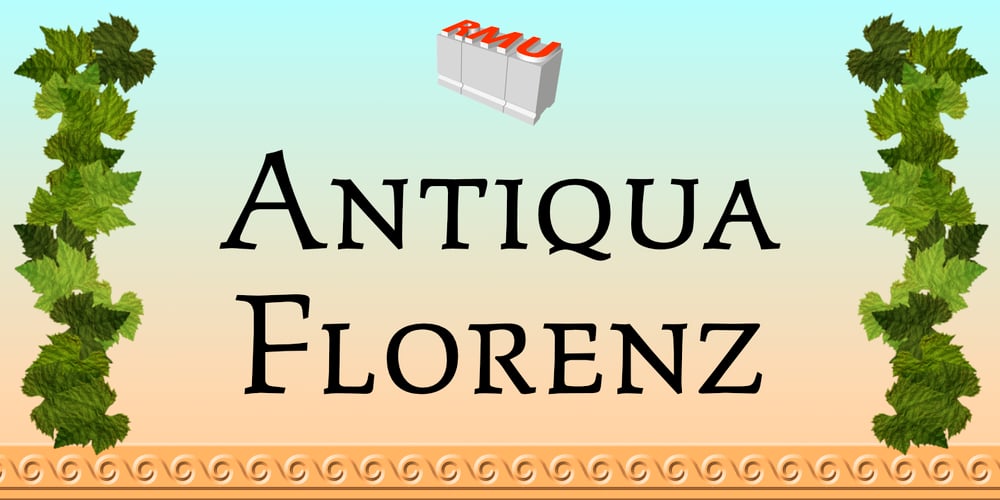
Antiqua Florenz Font Family was designed by Ralph M. Unger and published by RMU. Antiqua Florenz contains 1 styles and family package options. A font design of Paul Zimmermann, first released by Ludwig Wagner, Leipzig, in 1960, now revived and extended by Central European, Baltic, and Turkish character sets and their small caps. This font contains both lining and oldstyle numbers. To get access to all ligatures, it is recommended to activate both standard and discretionary ligatures.